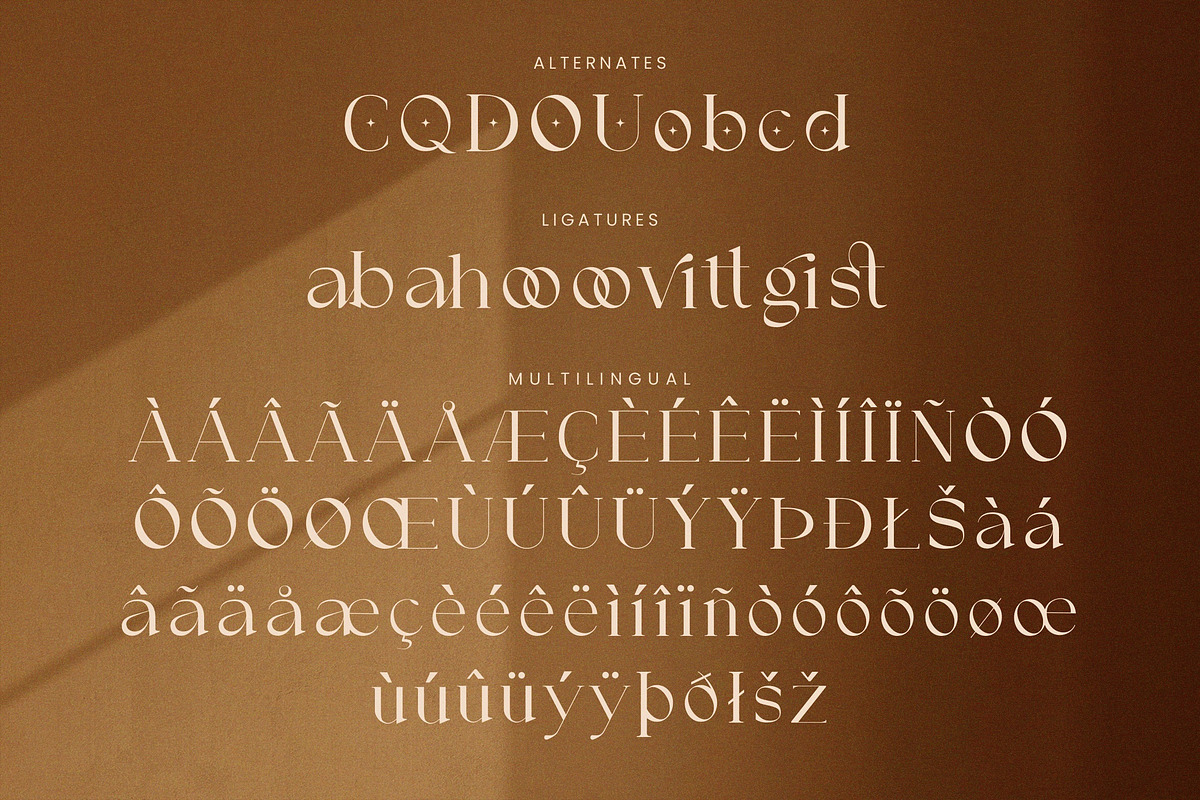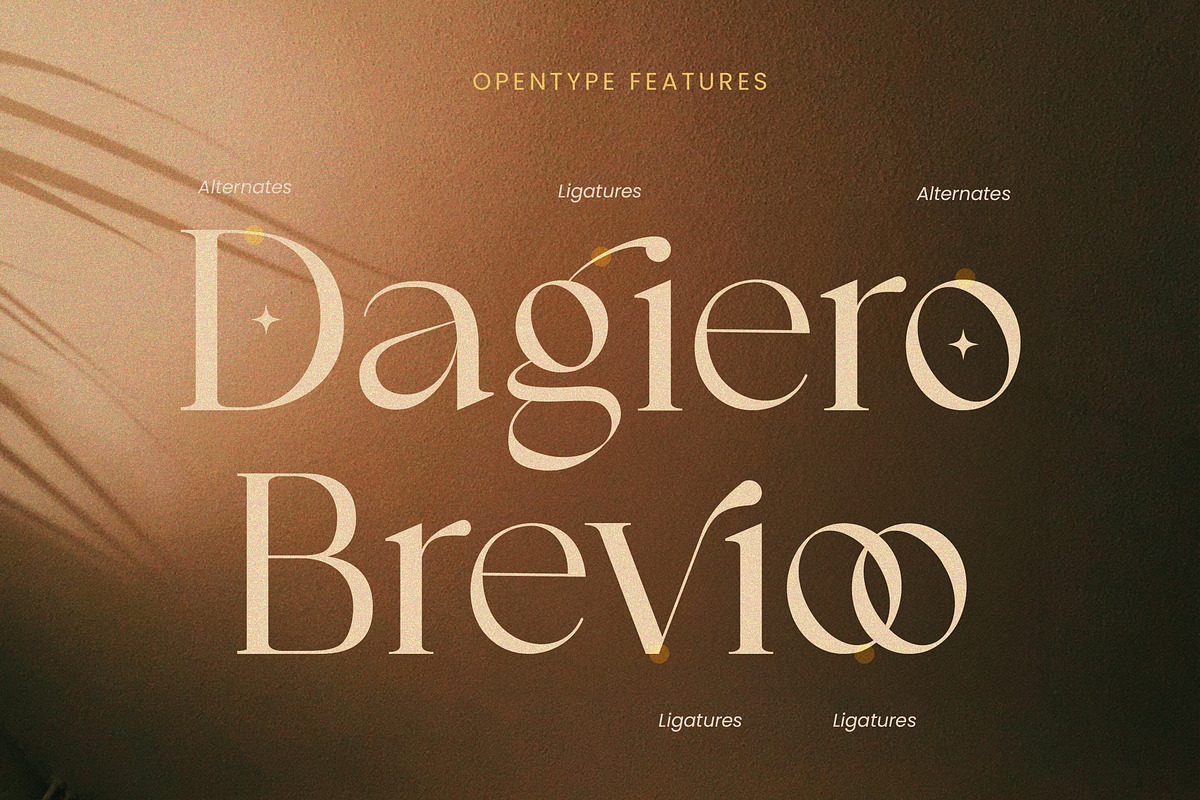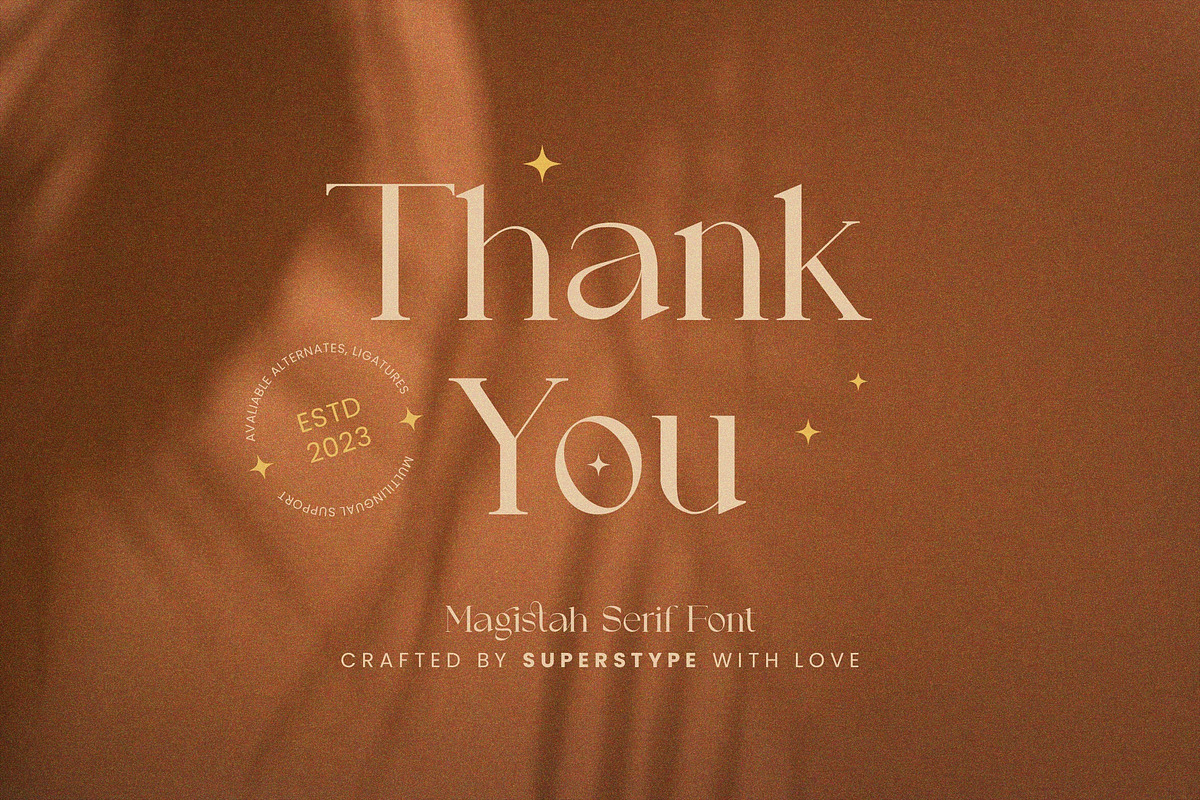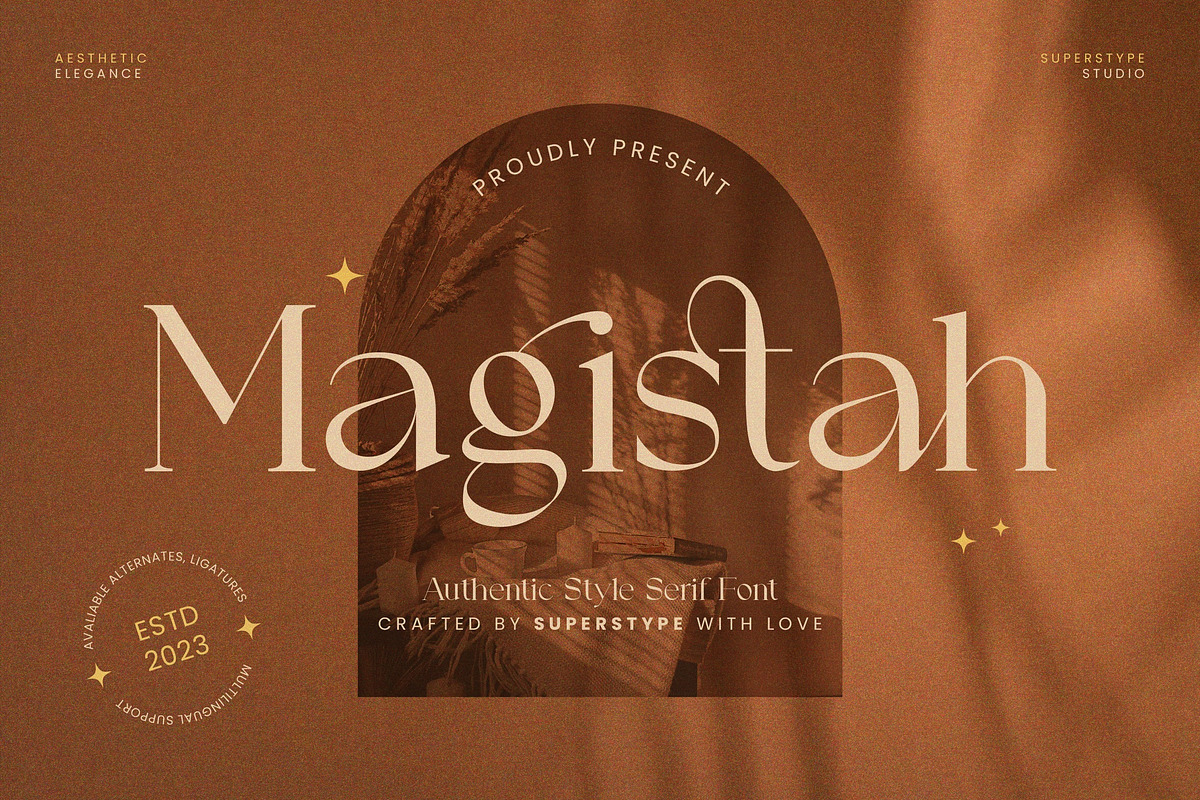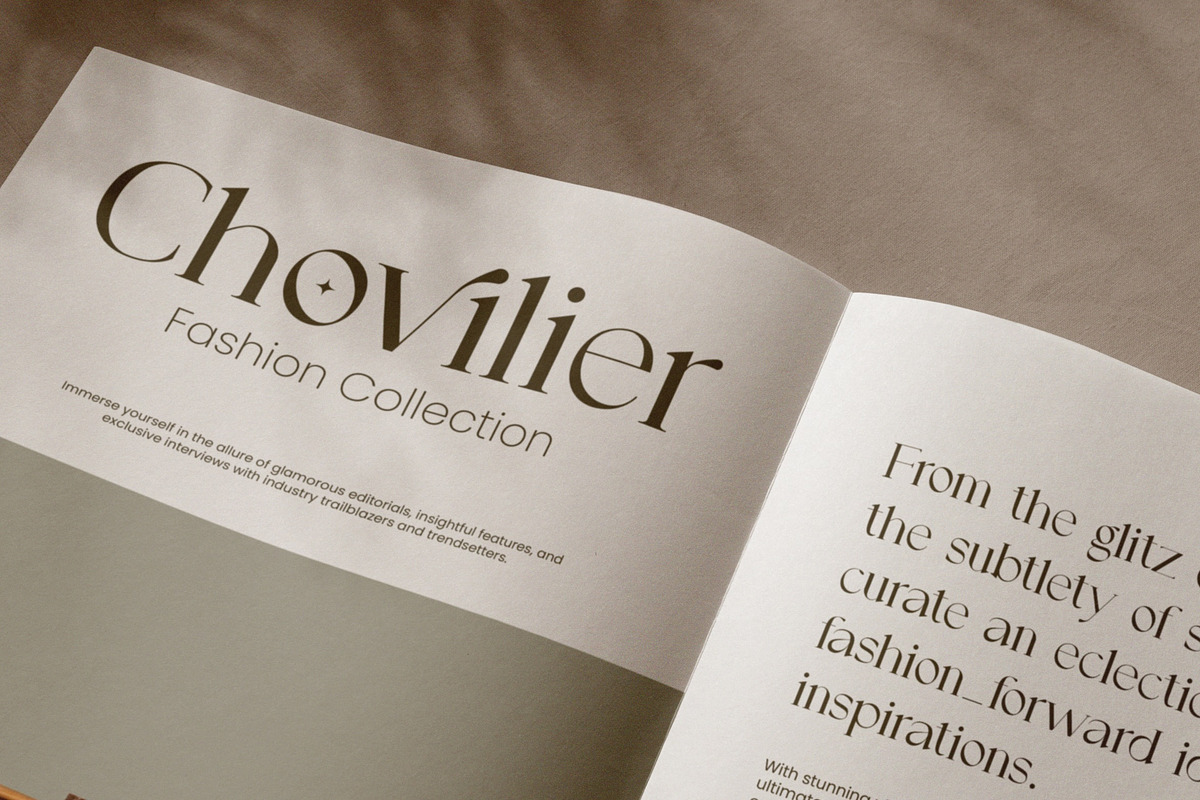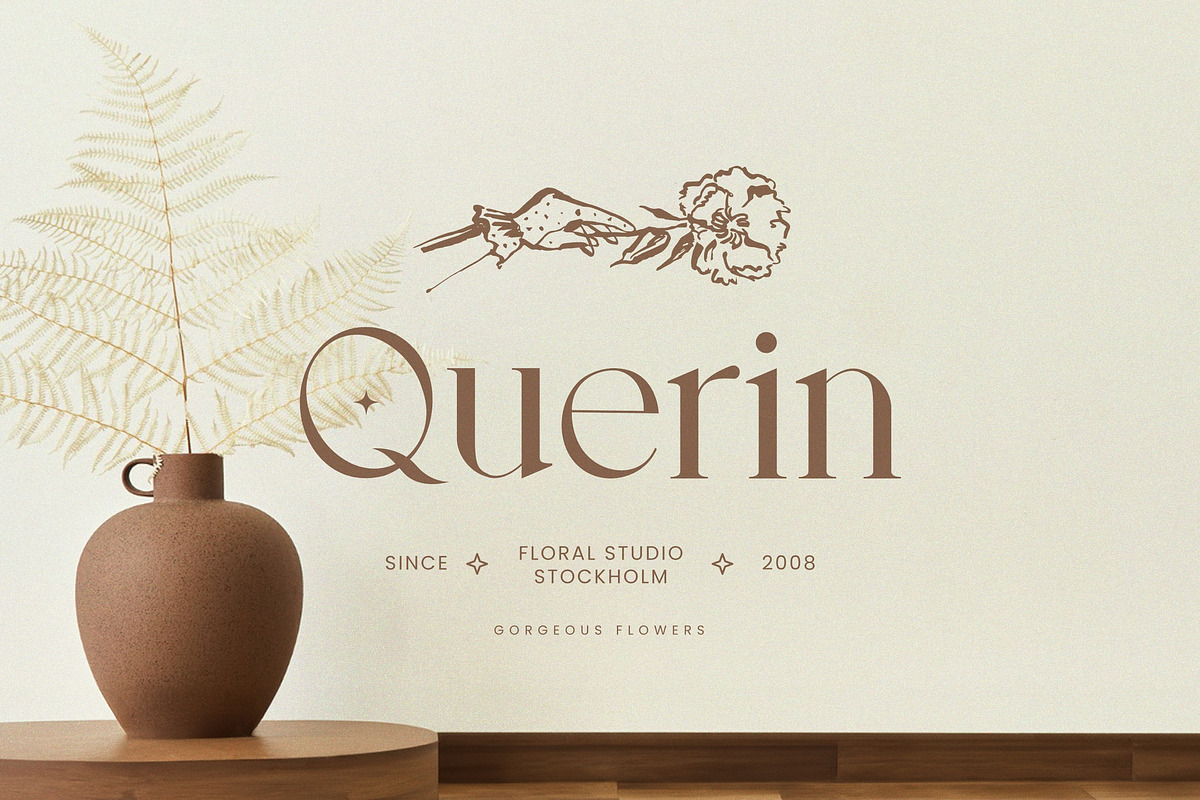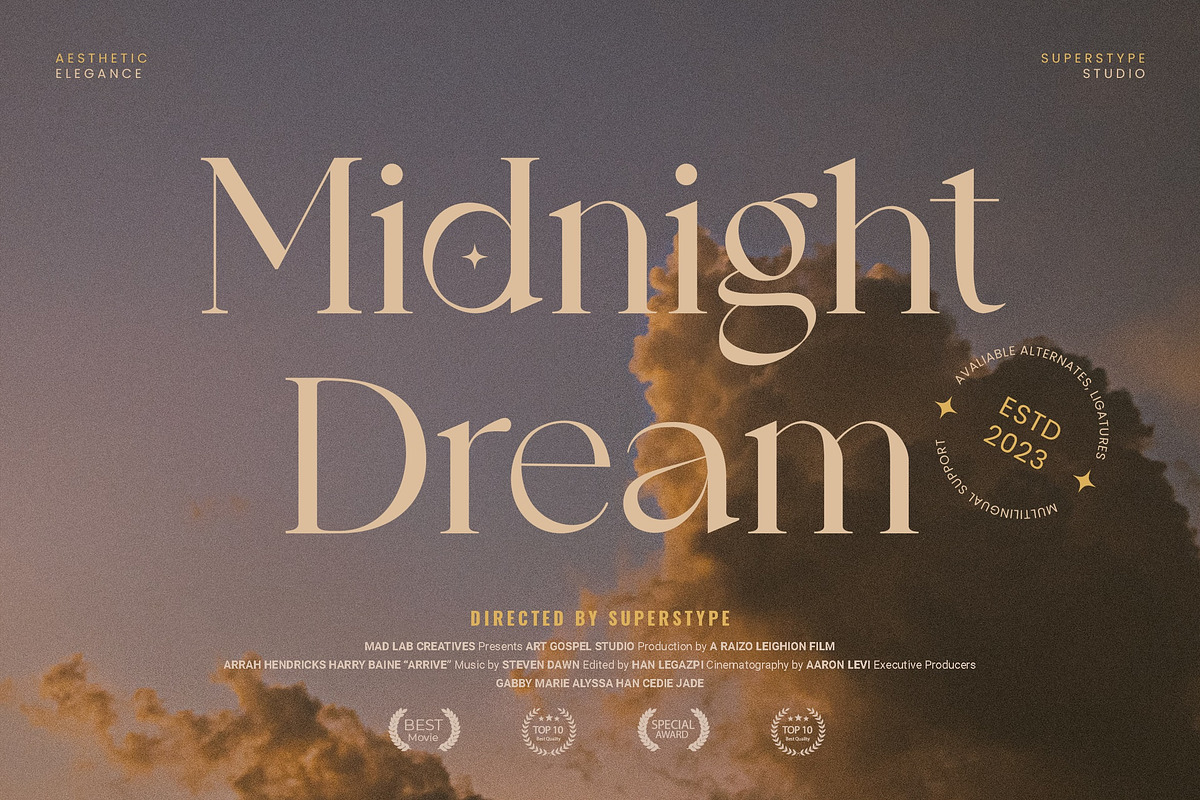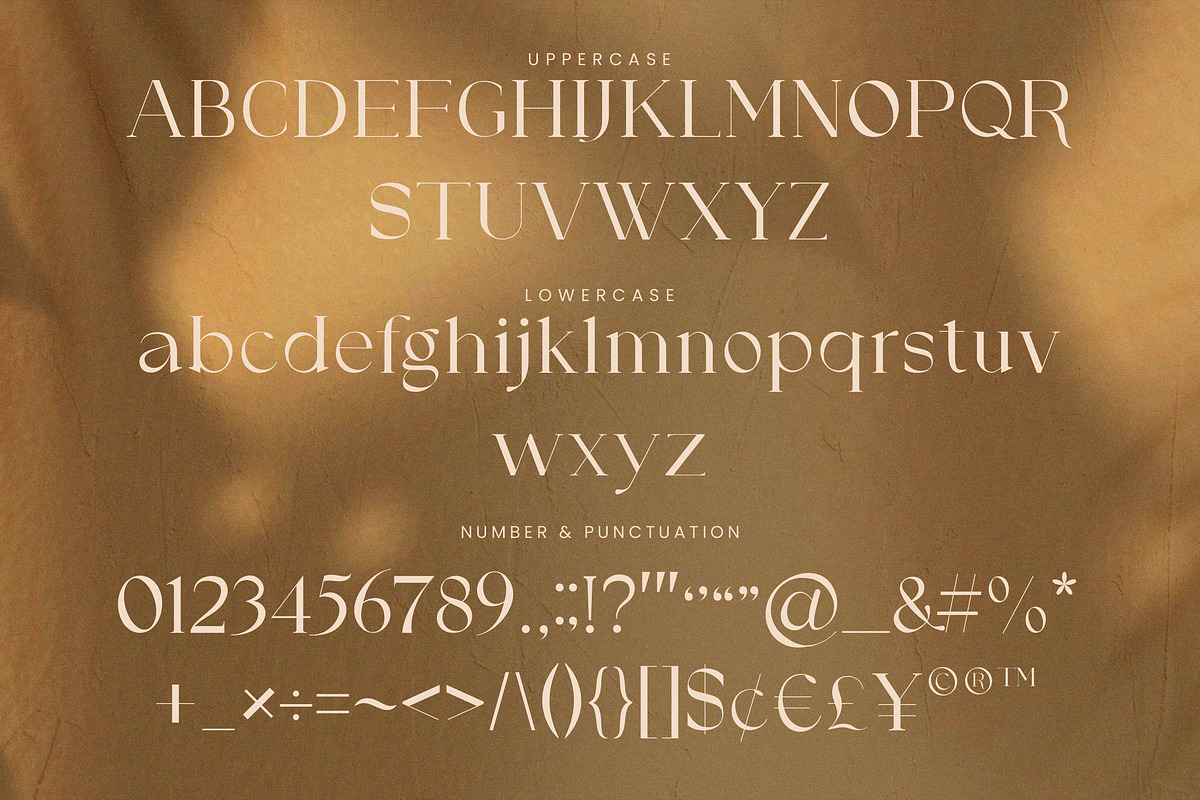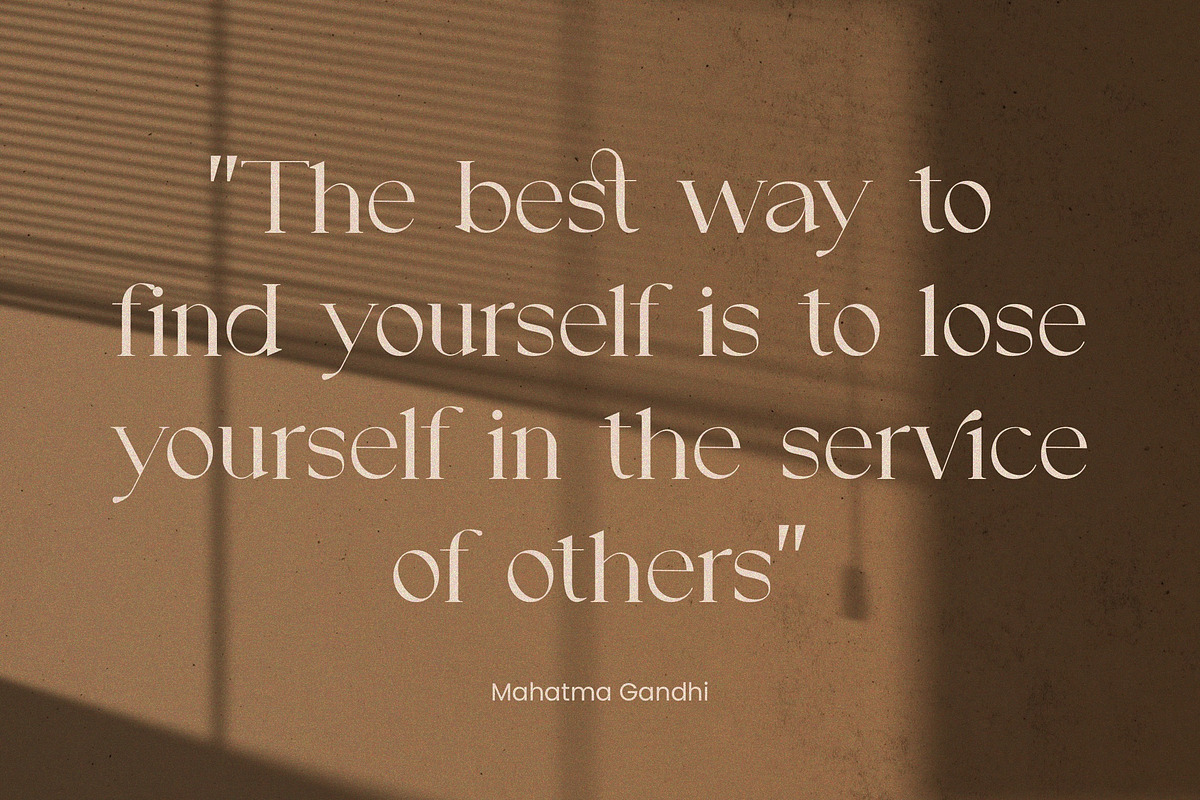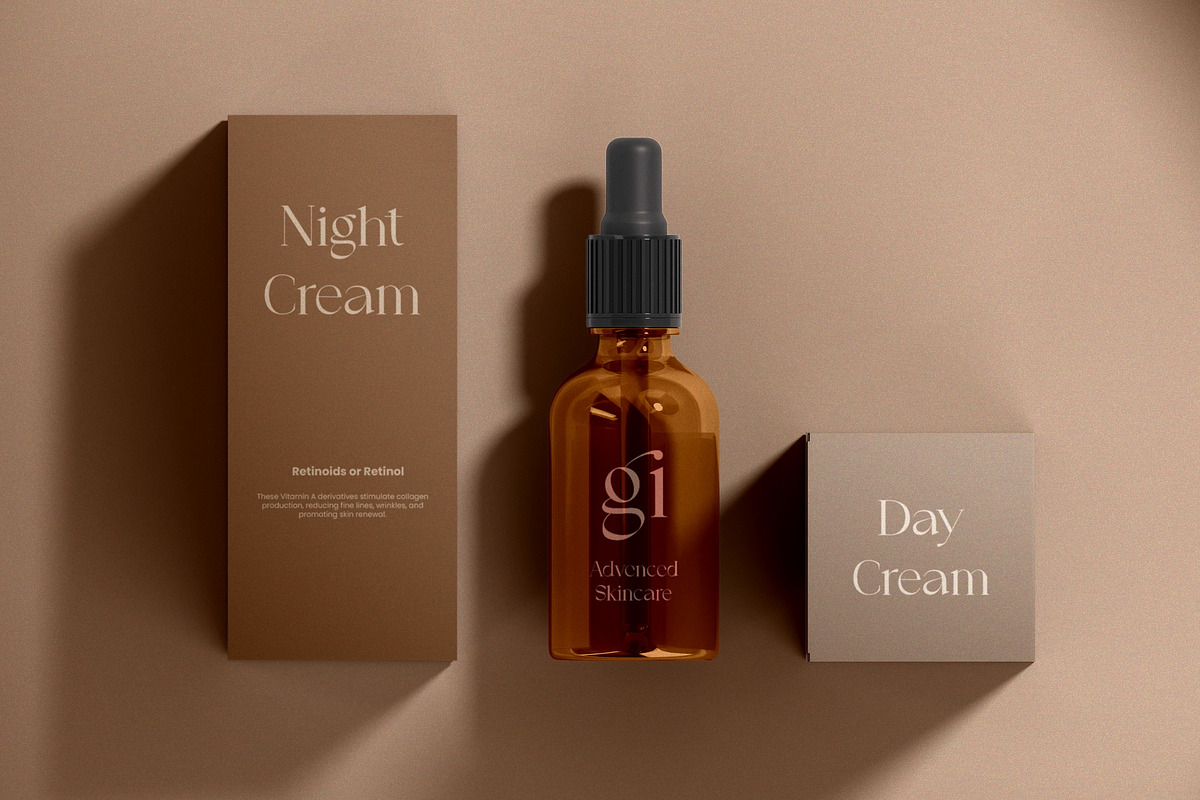
Magistah Authentic Serif Style
The 'Magistah' font is a sophisticated serif typeface perfect for the elegant aesthetics of the fashion industry. Its refined lines and classic appeal enrich designs with a captivating sense of luxury.